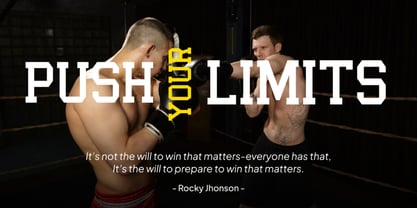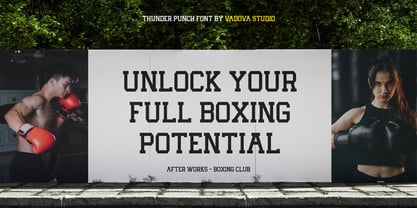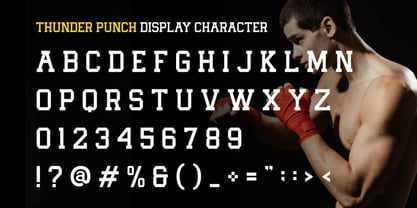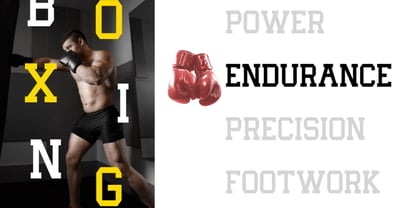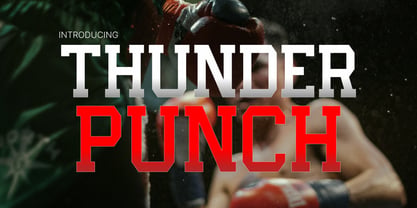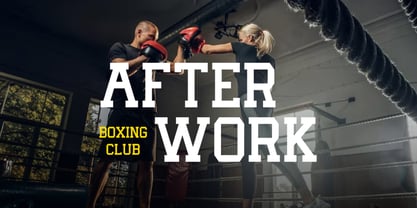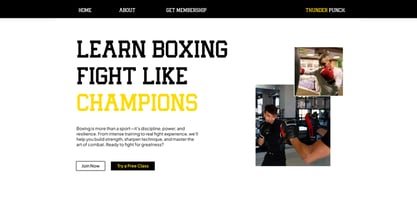
Thunder Punch
Thunder Punch is a dynamic sports typeface tailored for high-impact boxing and athletic themes. With bold, squared-off serifs and a commanding presence, it’s built to dominate posters, event flyers, gym branding. This font delivers an aggressive, energetic style ideal for conveying strength, motion, and determination. Thunder Punch thrives in designs needing bold, readable, and modern sports typography that commands attention both in print and digital arenas.
Suitable For boxing promo, sports branding, gym poster, action flyer, athletic club, red headlines, varsity title, strong design, brawl events, fight night, power ads, championship poster, impactful layout, fitness center, ring poster, typography logo, athlete merch, event tickets, training campaign.